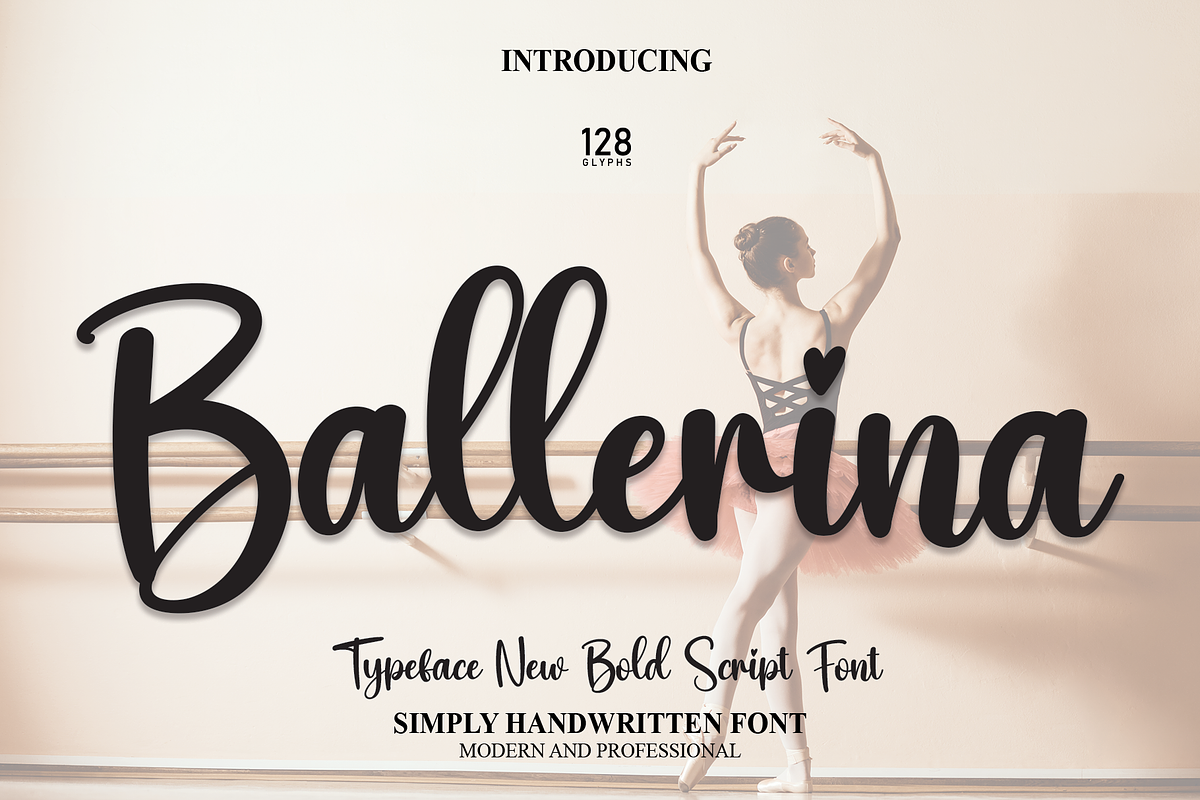
Ballerina | Script Font Free Download
Ballerina | Script Font Free Download is an elegant and graceful handwritten typeface that captures the fluid beauty of ballet and classic calligraphy. With its flowing lines, delicate curves, and soft rhythm, this font is perfect for wedding invitations, feminine branding, event signage, stationery, and luxury packaging.
Inspired by movement and romance, Ballerina exudes sophistication while maintaining a personal, handcrafted feel. It works beautifully as a headline or signature-style accent, adding charm and refinement to any layout.
Add elegance and poetic motion to your designs with the timeless style of Ballerina.